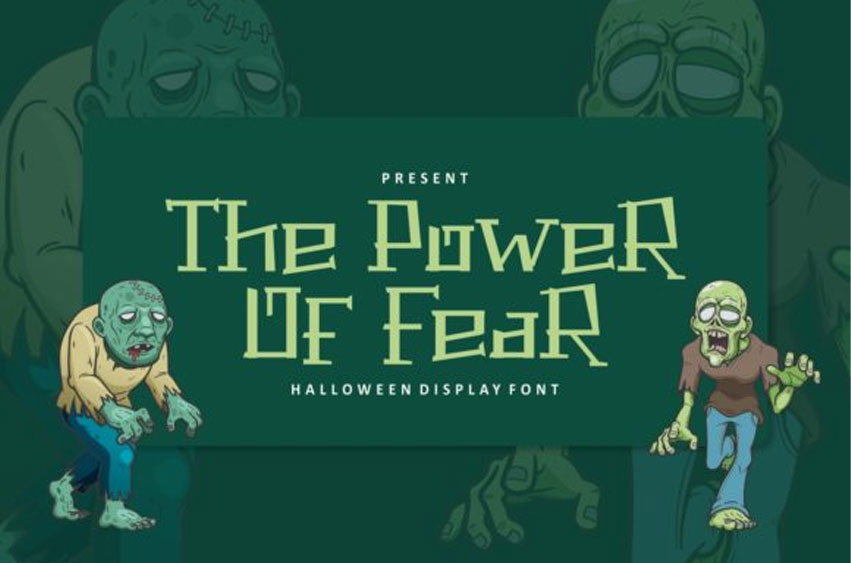
The Power of Fear Font
The Power of Fear Font is a fun and quirky display font.
Spooky and a bit dramatic, this font is the perfect choice for each of your Halloween designs.